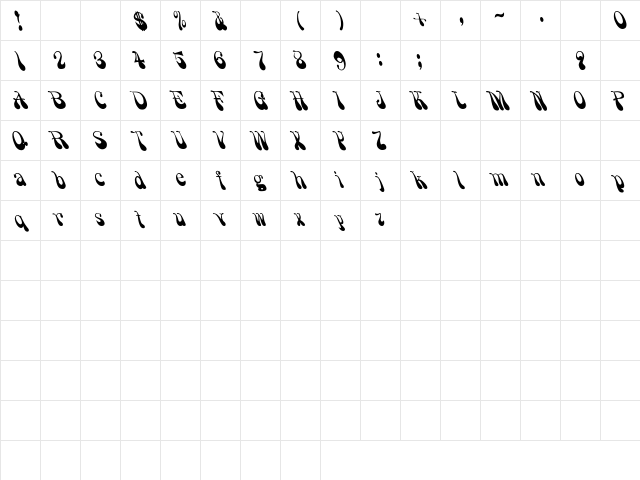
PsychedelicSmoke Regular Free Font
PsychedelicSmoke Regular
PsychedelicSmoke Family
Design Context for PsychedelicSmoke
PsychedelicSmoke is a composed and adaptable typeface that performs quietly and consistently across a wide range of design contexts.